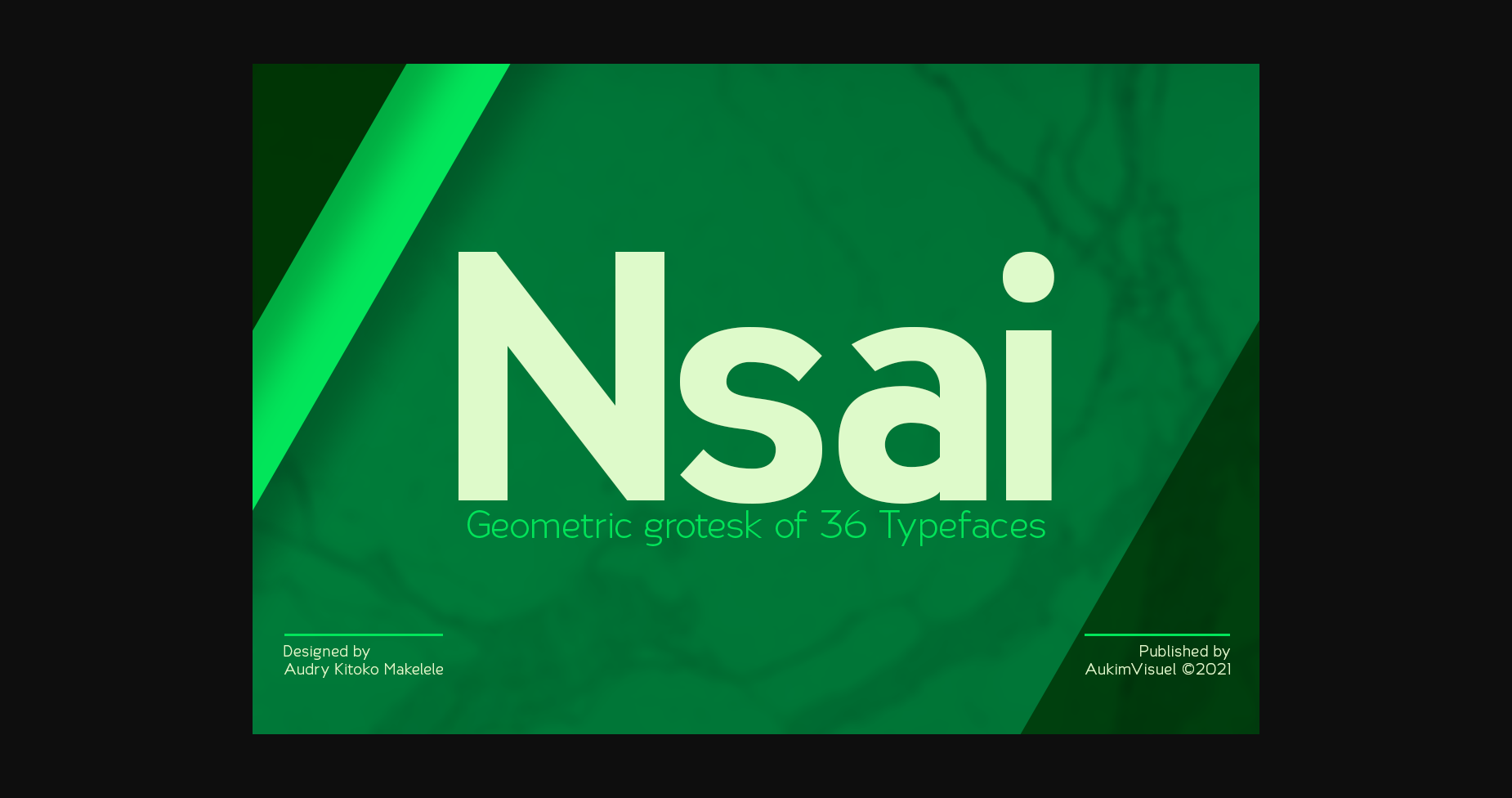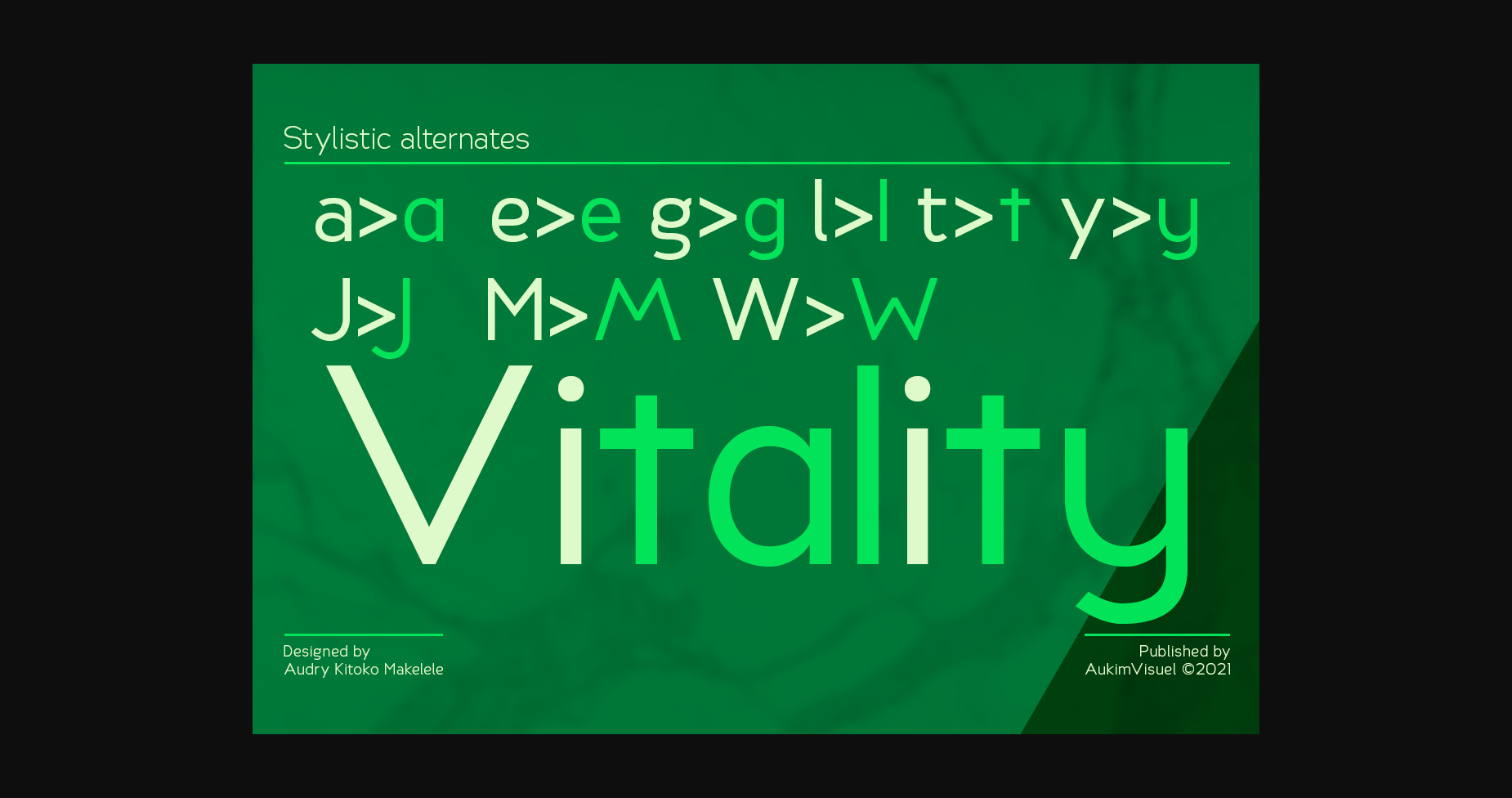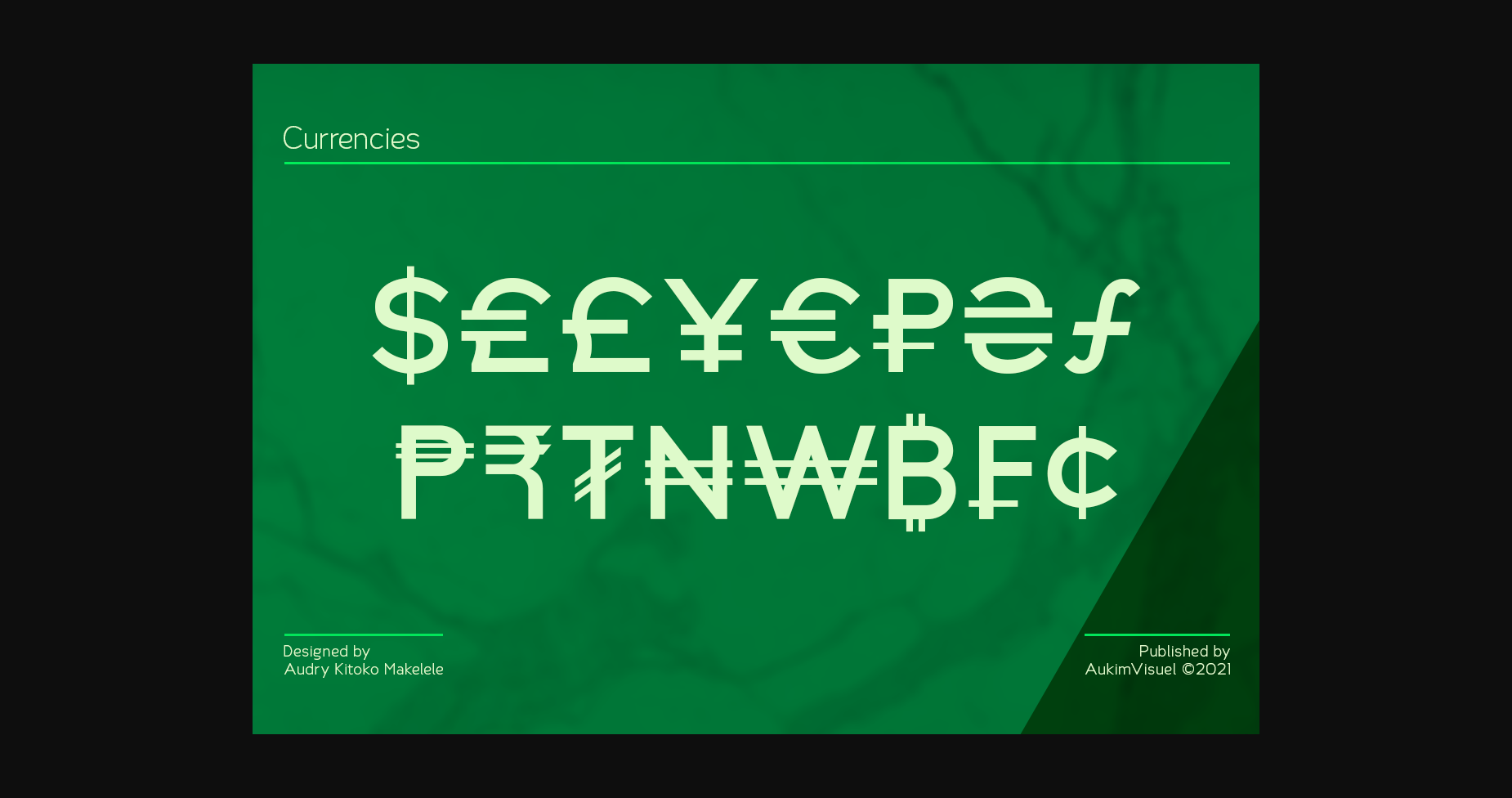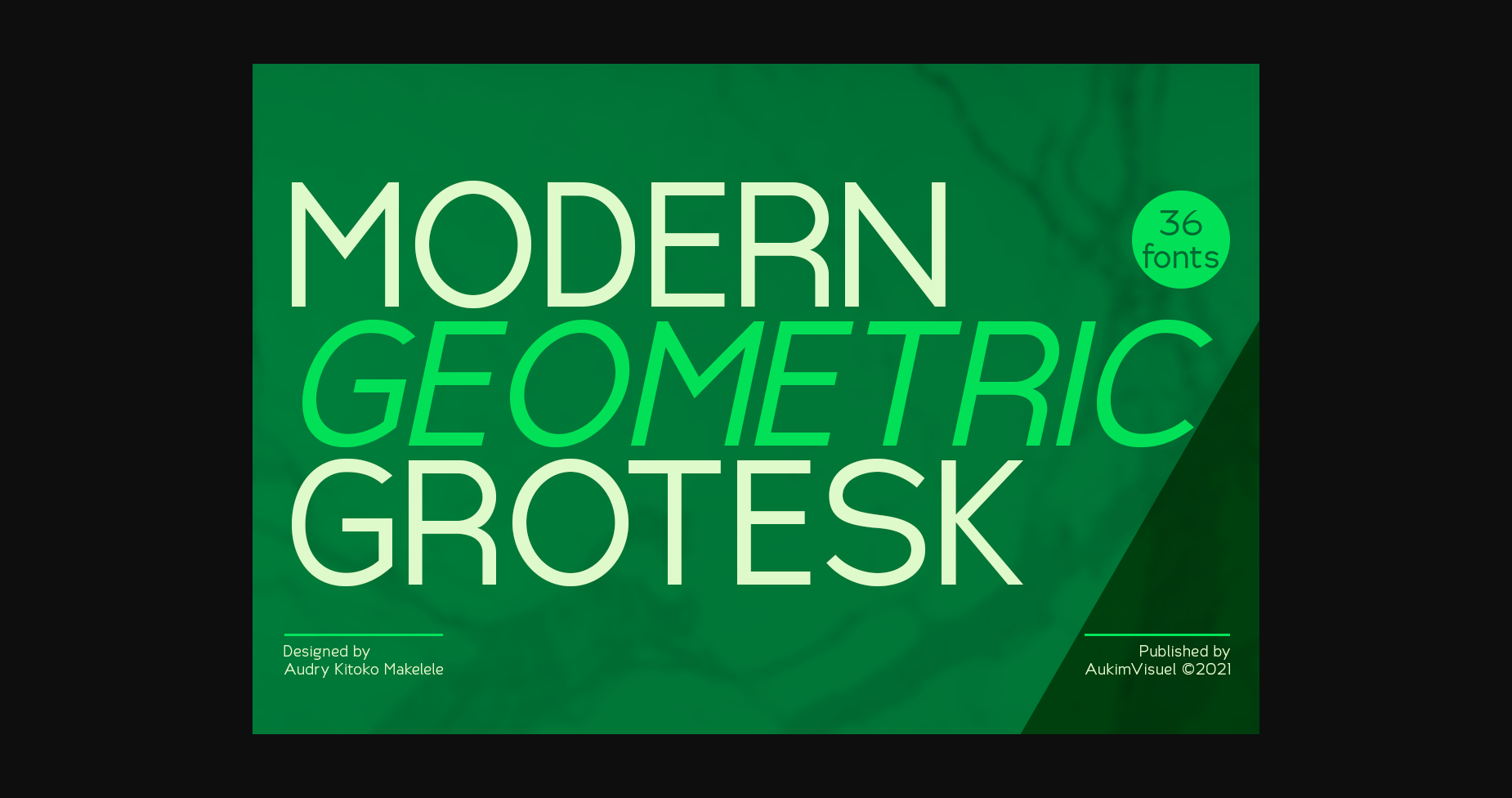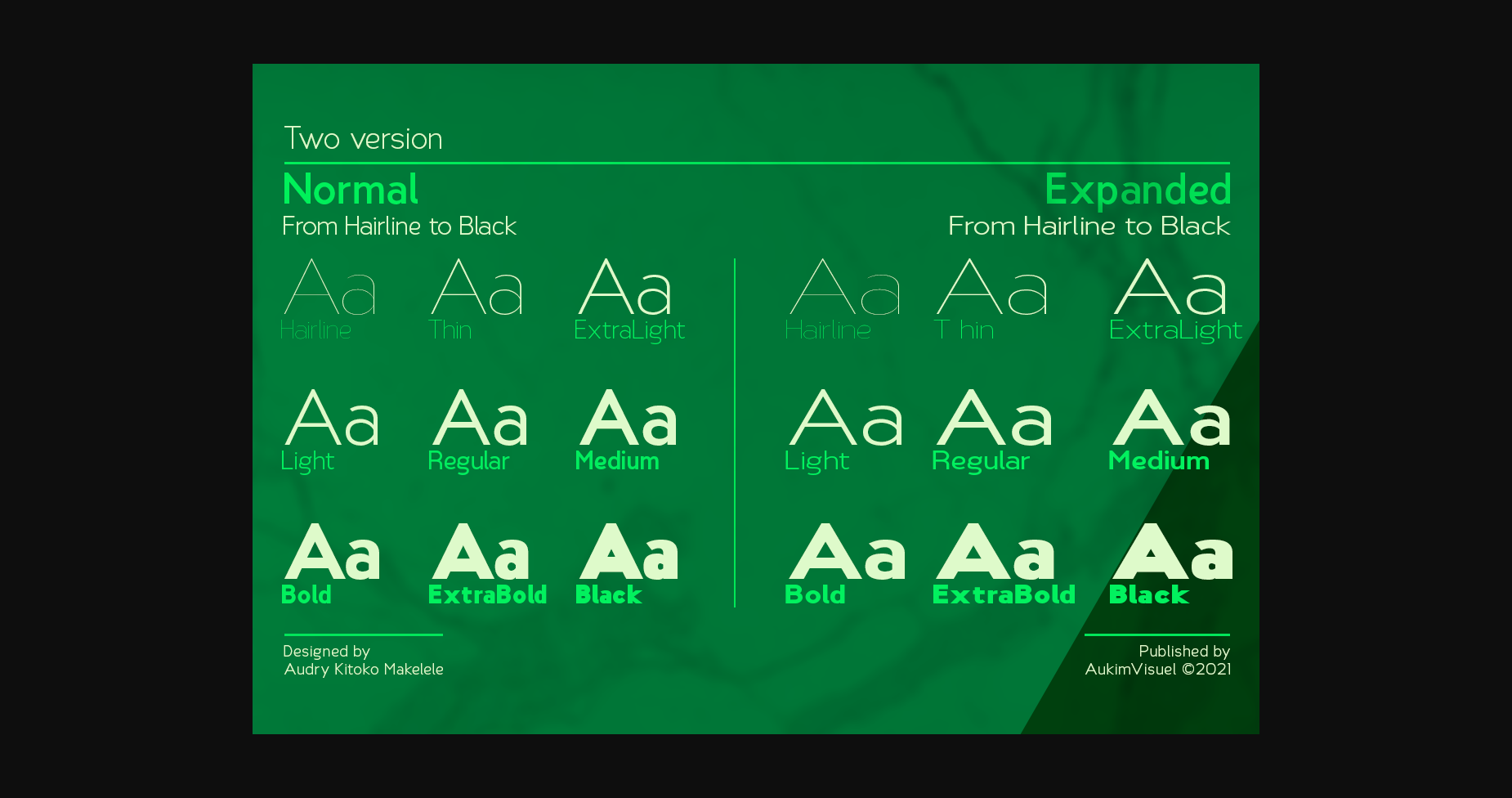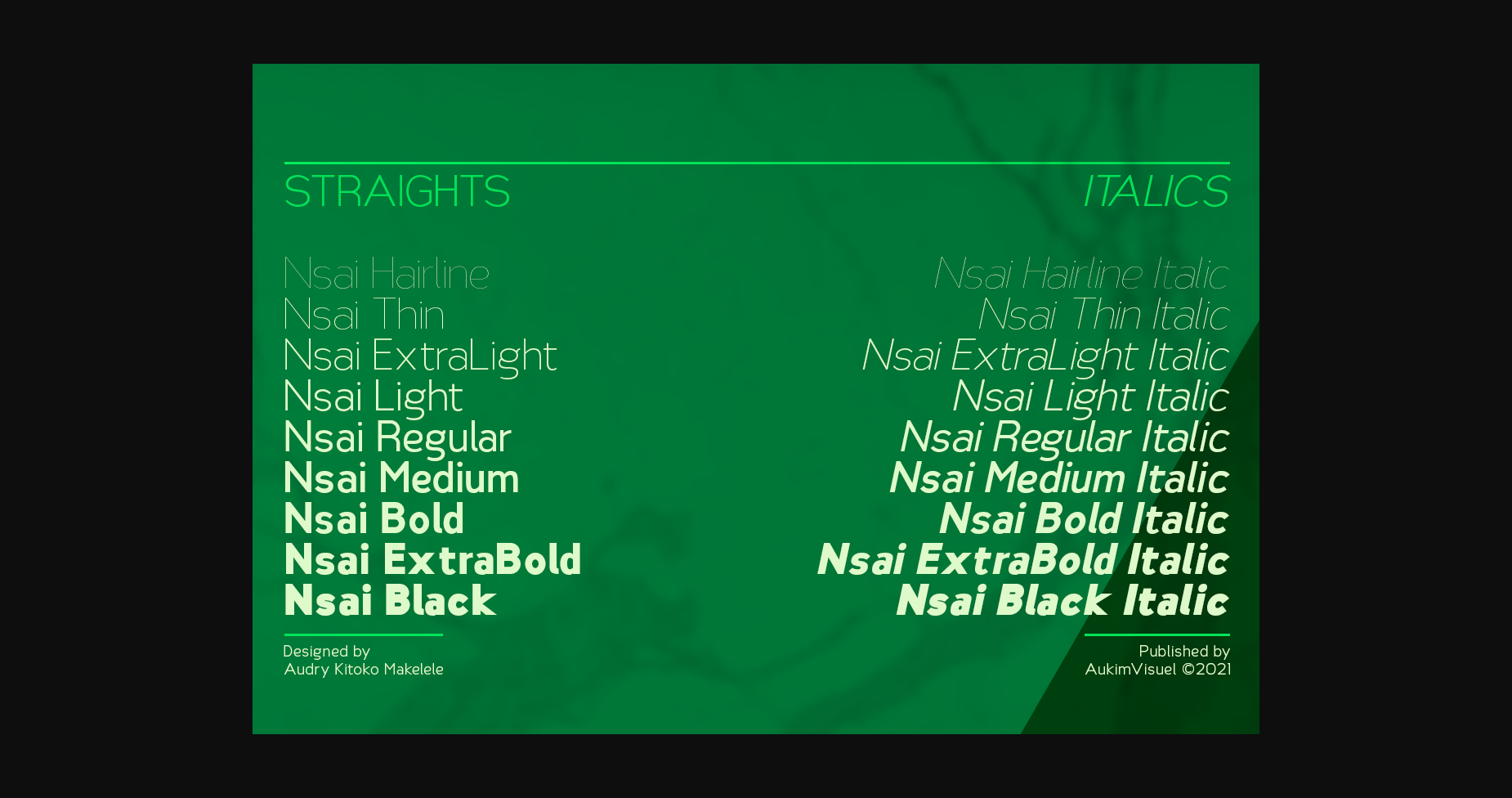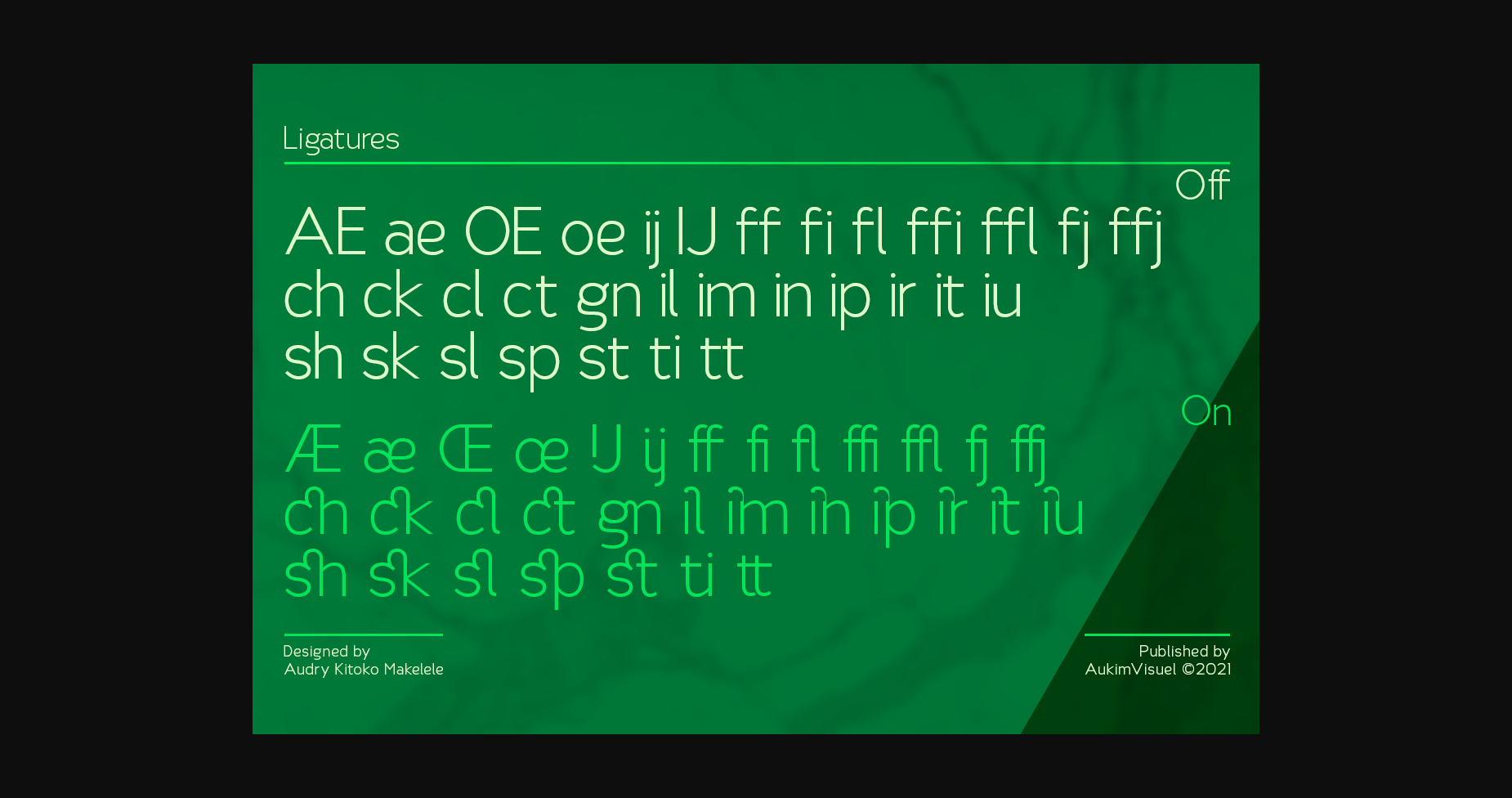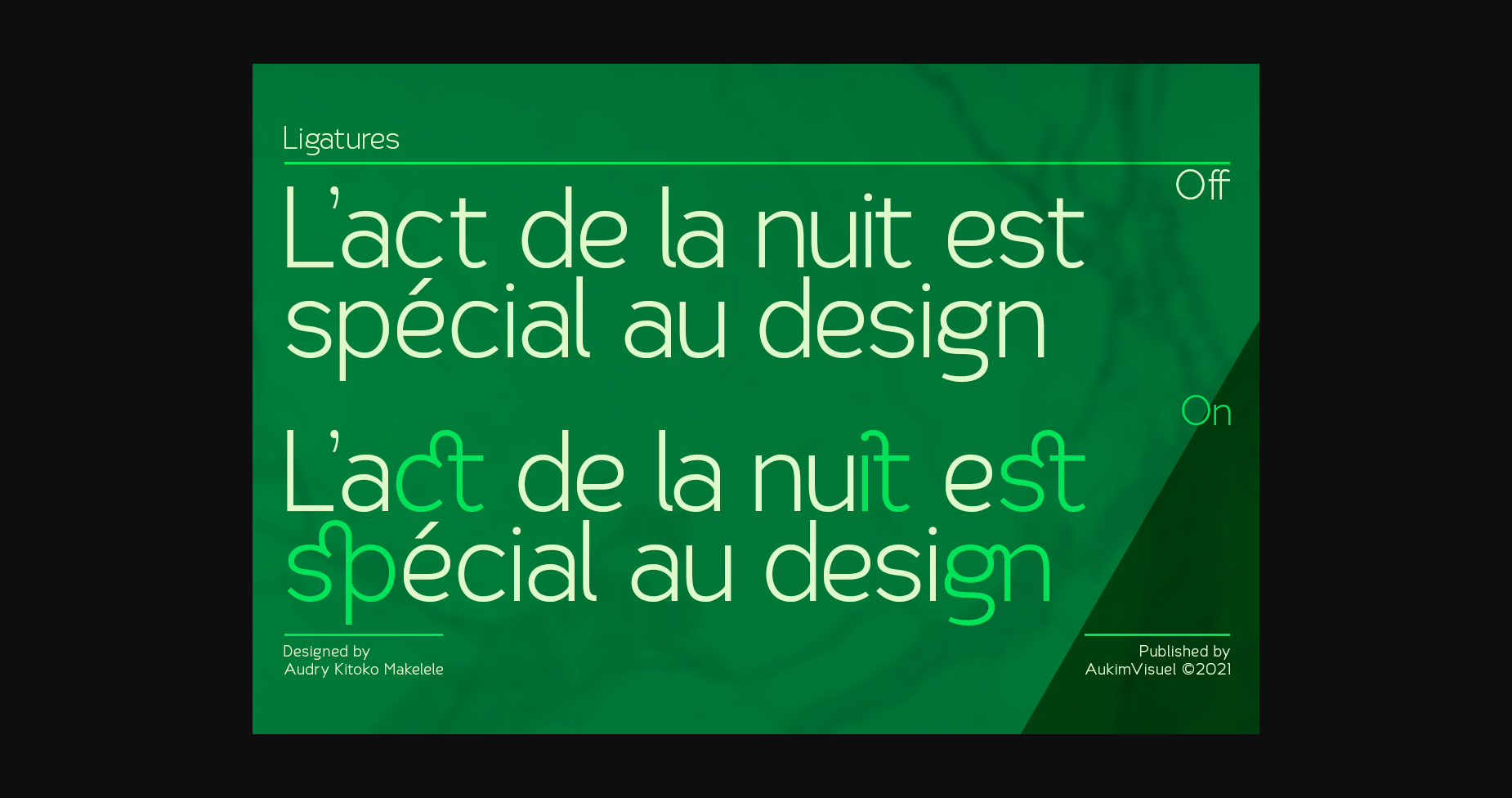
Nsai is a cool and simple lettered sans serif font. This font is ideal for writing web designs, business cards, or pretty much anything else that requires a unique touch.